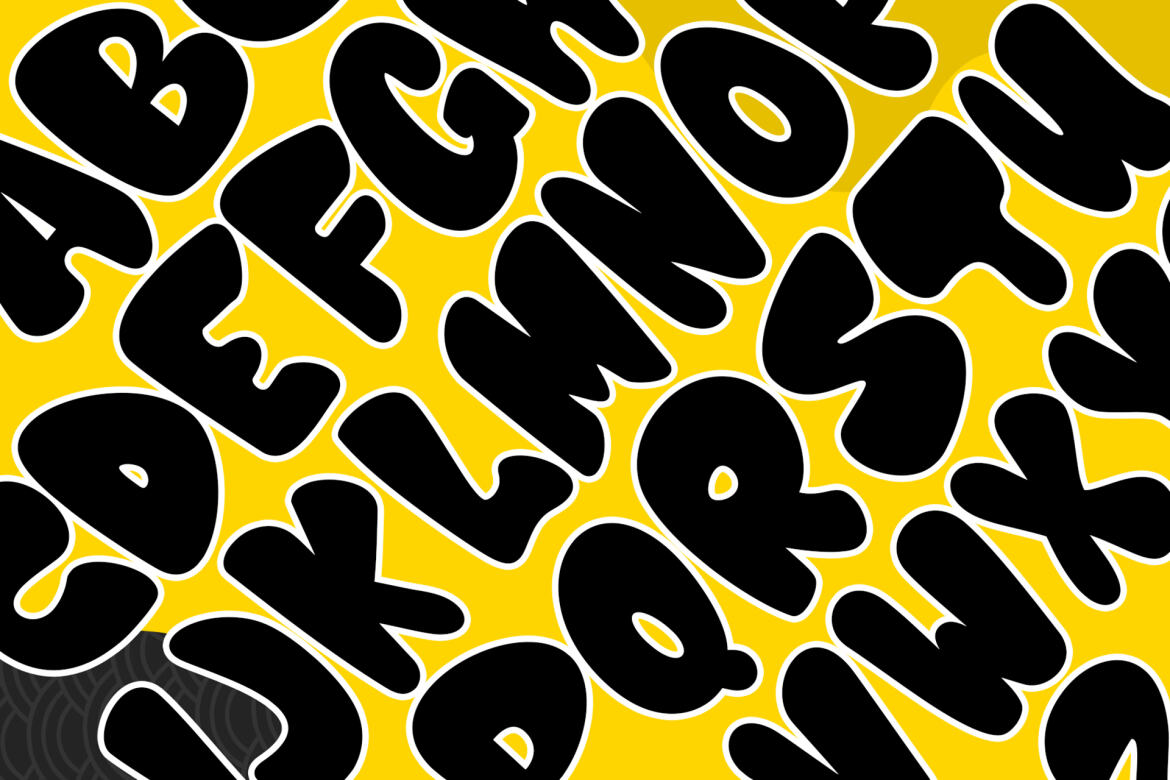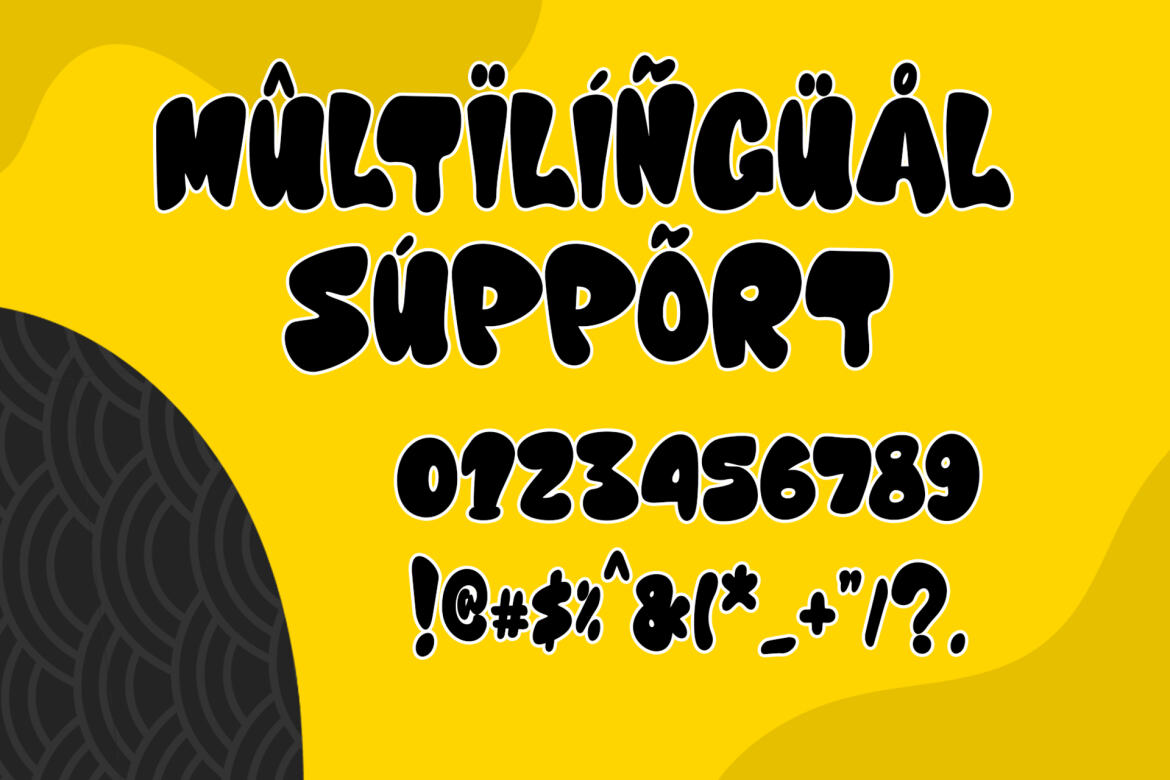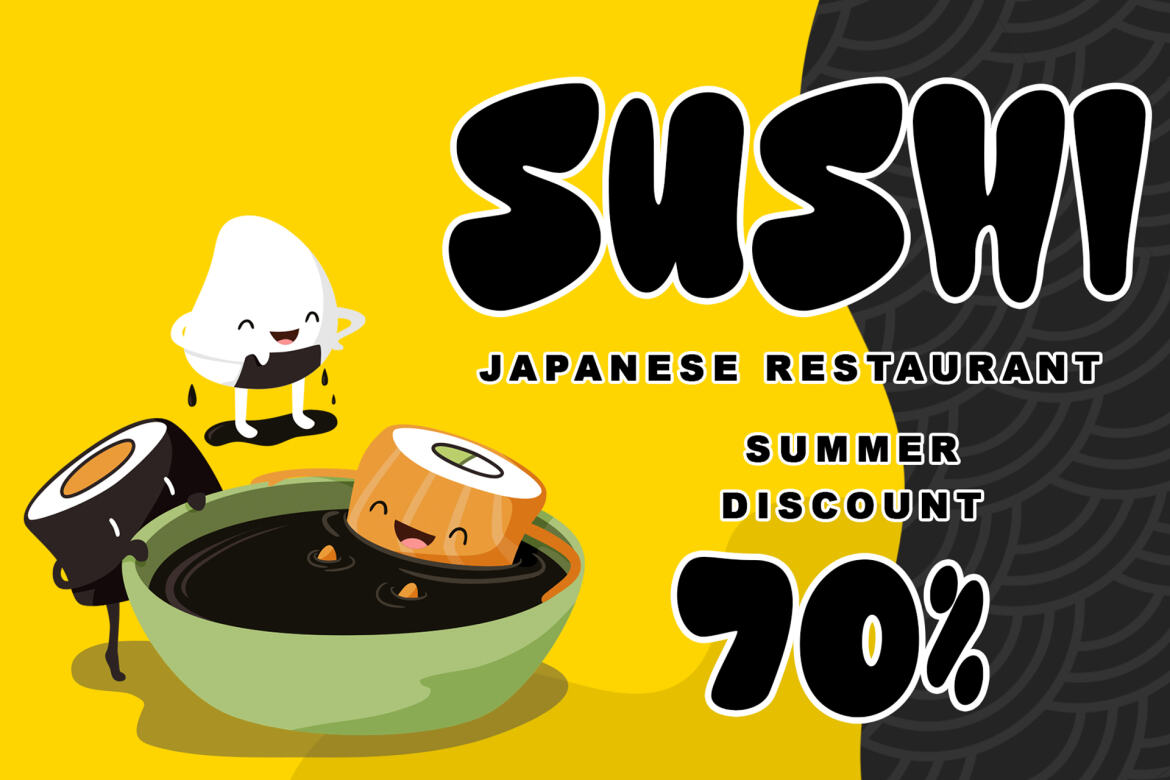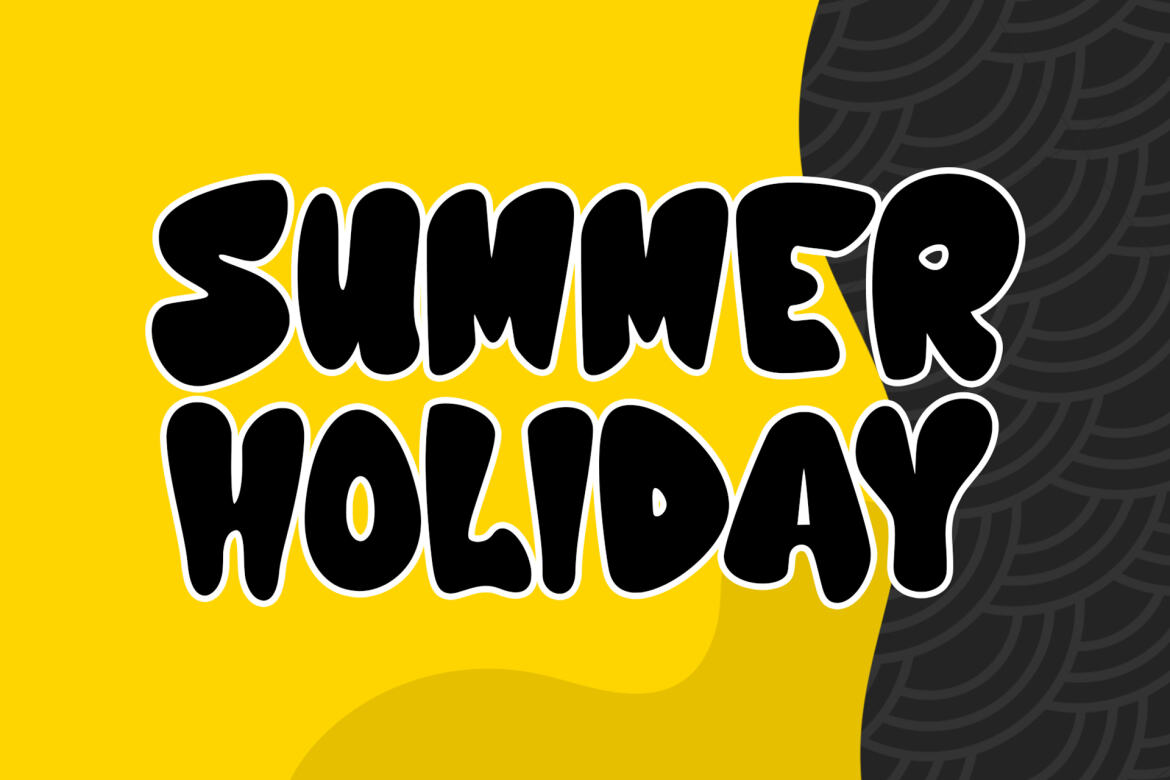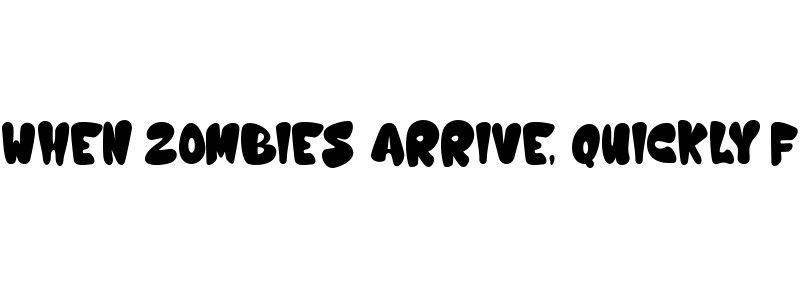
Nijikon japan
Nijikon Japan is a cool and friendly display font, inspired by Japanese cartoons. Get inspired by its childlike charm and use it to create fun designs. This font is PUA encoded which means you can access all of the cute glyphs with ease!
• • support multilingual; ä ö ü ä ö ü ß ¿ ¡